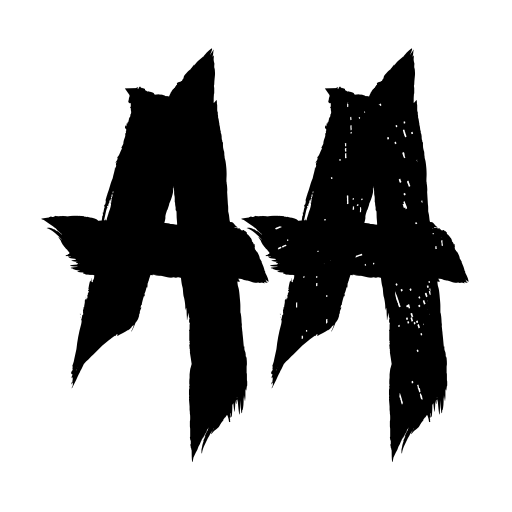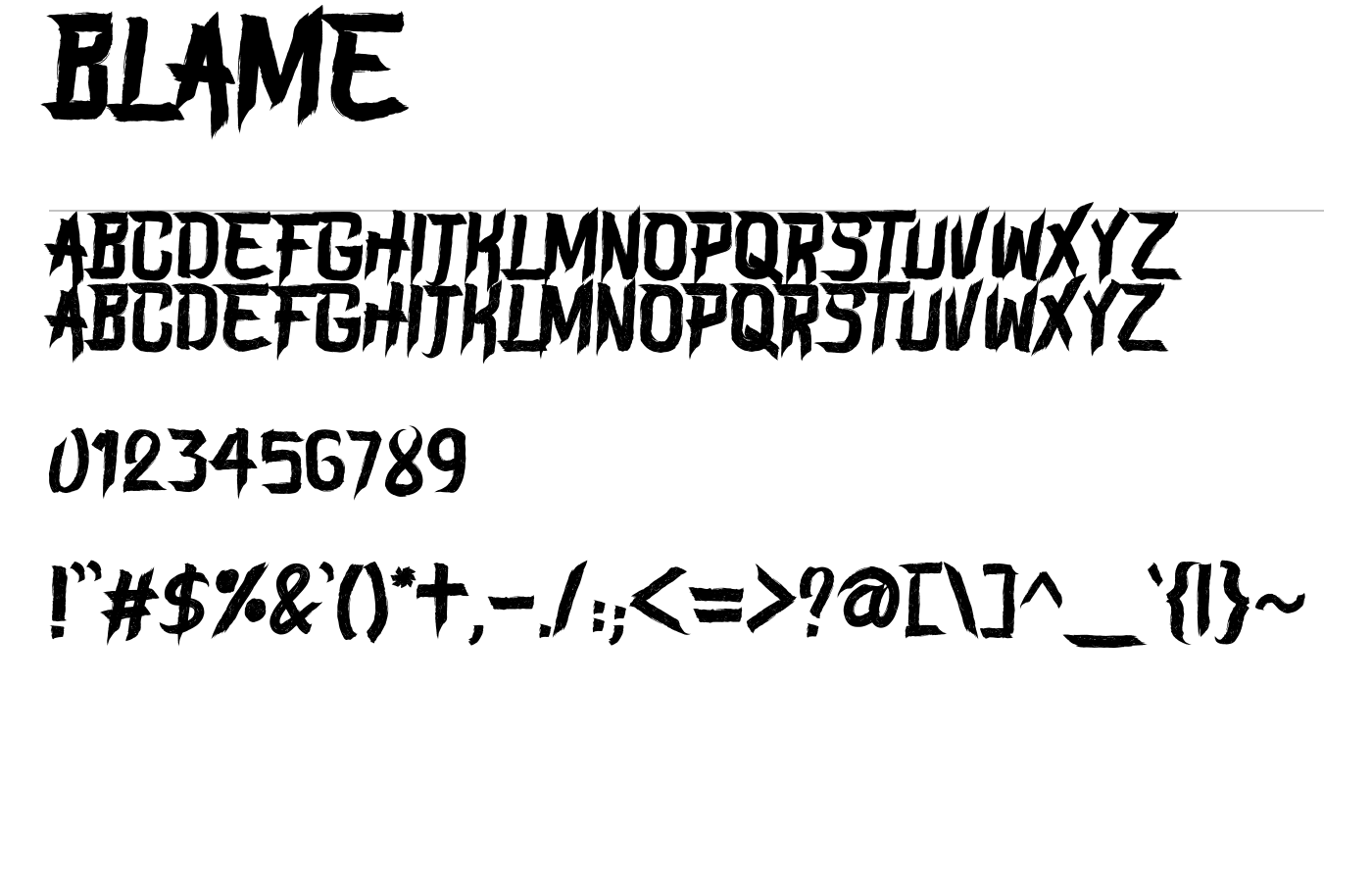
BLAME is a bold, condensed display font with jagged, irregular edges that evoke a raw, gritty, and slightly chaotic feel. Its sharp, distressed letterforms give it a distinctive, edgy personality, perfect for designs that aim to convey intensity, rebellion, or a handmade, rough aesthetic. This font works best in headlines, posters, and branding projects where a strong, dramatic impact is desired.
BLAME Font
About BLAME Font
| Designer | Knackpack Studio |